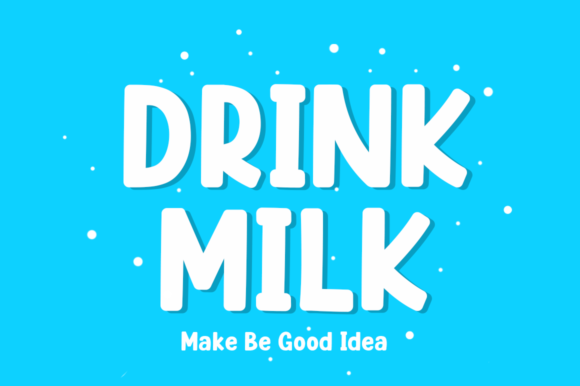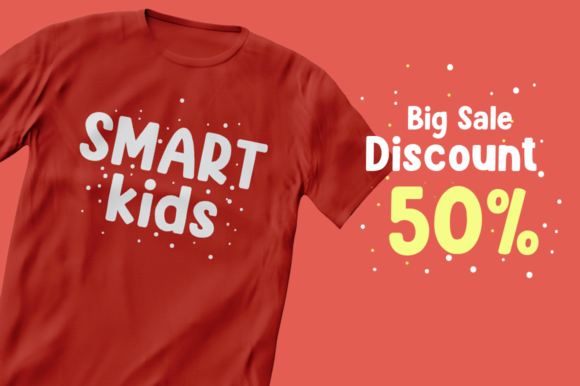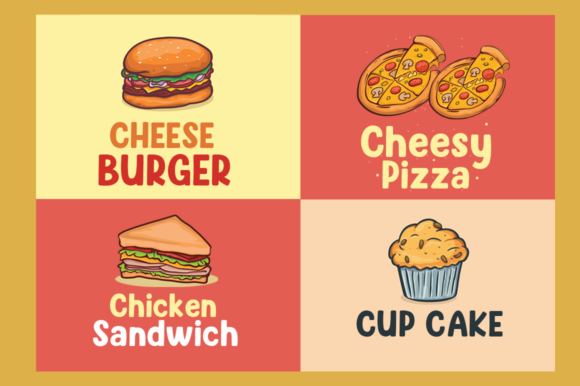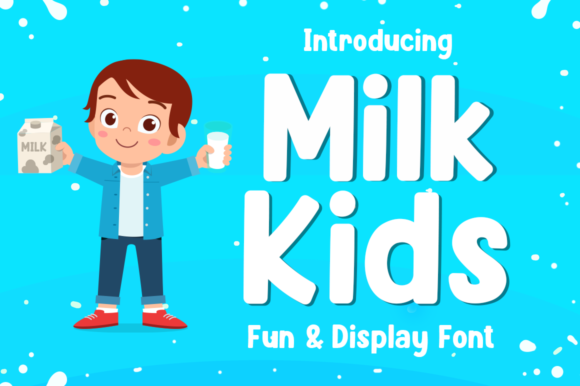
Introduction to Milk Kids Font
Milk Kids is a fun and friendly display font.
It embodies playfulness and authenticity and is the perfect choice for any children activity or school project .
Key Features of Milk Kids Font